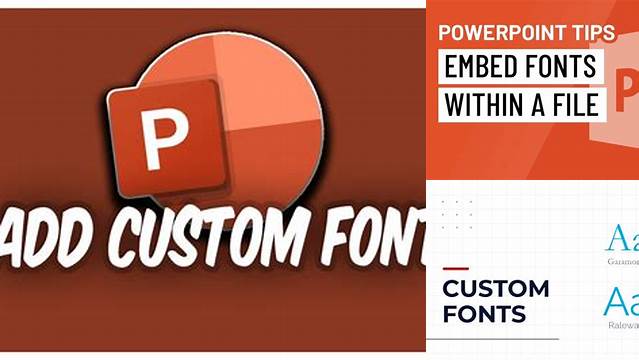
Custom Fonts: Elevate Your PowerPoint Presentations
Hey guys! Ever felt like your PowerPoint presentations are missing that certain je ne sais quoi? Like they're just blending in with the sea of Arial and Times New Roman? Well, you're not alone! One of the easiest ways to inject some serious personality and brand identity into your slides is by using custom fonts. But how do you even do that? Don't worry, we've got you covered. This comprehensive guide will walk you through everything you need to know about using custom fonts in PowerPoint, from finding the perfect font to embedding it correctly so your presentation looks amazing no matter where it's opened.
Why should you even bother with custom fonts, you ask? Think about it: fonts are a crucial part of your visual branding. They communicate tone, style, and even the overall message of your presentation. A playful script font might be perfect for a presentation to kids, but it would look totally out of place in a formal business meeting. Using a custom font that aligns with your brand or the theme of your presentation can instantly elevate your slides from bland to bam! It helps you create a consistent brand identity, making your presentations instantly recognizable. Plus, it's a fantastic way to stand out from the crowd and show that you've put thought and effort into your design. Imagine giving a presentation with a unique, stylish font that no one else is using – instant impact!
Finding the perfect custom font is like finding the perfect pair of shoes – it takes a little searching, but when you find it, you know. There are tons of resources online where you can download free and paid fonts. Websites like Google Fonts, DaFont, and Font Squirrel are treasure troves of typography just waiting to be discovered. When you're browsing, consider the overall style you're going for. Are you looking for something elegant and professional? Bold and modern? Whimsical and fun? Think about your audience and the message you want to convey. A good rule of thumb is to choose fonts that are both visually appealing and easy to read. Avoid overly decorative or complex fonts that can strain the eyes, especially in large blocks of text. Readability is key, especially when presenting to a large audience or projecting your slides onto a screen. You want your message to be clear and impactful, not lost in a sea of confusing characters. So, take your time, explore different options, and don't be afraid to experiment until you find the font that perfectly captures the essence of your presentation.
Embedding Custom Fonts in PowerPoint
Okay, so you've found the perfect font, installed it, and your presentation looks amazing on your computer. But what happens when you share it with someone else, or present it on a different machine? This is where embedding fonts comes in. If you don't embed your fonts, the other person's computer might not have the font installed, and PowerPoint will substitute it with a default font – and trust us, it's usually not pretty. Your carefully chosen typography will be gone, replaced by something generic and potentially completely wrong for your design. Embedding fonts ensures that your presentation looks exactly the way you intended, no matter where it's opened.
Fortunately, PowerPoint makes embedding fonts relatively easy. To embed fonts in PowerPoint, go to File > Options > Save. At the bottom of the "Save" options, you'll see a checkbox labeled "Embed fonts in the file." Check this box, and you'll have two options: "Embed only the characters used in the presentation" and "Embed all characters." The first option will create a smaller file size, as it only embeds the characters that are actually used in your presentation. This is usually the best option if you're concerned about file size and you're not planning on editing the presentation on another computer. However, if you think you might need to make changes to the text later, or if you're using special characters or symbols, it's safer to choose "Embed all characters." This will ensure that all the characters in the font are included in the file, so your presentation will look consistent even if you need to add or change text.
It's important to note that not all fonts can be embedded. Some font licenses restrict embedding, so you might not be able to embed certain fonts even if you want to. If a font cannot be embedded, PowerPoint will typically display a warning message. In this case, you'll need to choose a different font or obtain a license that allows embedding. Another thing to consider is file size. Embedding fonts, especially "Embed all characters," can significantly increase the size of your PowerPoint file. This can be a concern if you're sharing your presentation via email or uploading it to a website. If file size is an issue, try using "Embed only the characters used in the presentation" or consider using a font that has a smaller file size. You can also compress your images to reduce the overall file size. Embedding fonts is a crucial step in ensuring that your presentation looks its best, but it's also essential to be mindful of the potential downsides and choose the option that works best for your needs.
Best Practices for Using Custom Fonts in PowerPoint
Alright, we've covered the basics of finding, installing, and embedding custom fonts. Now, let's talk about some best practices to make sure you're using them effectively. Just because you can use a custom font doesn't mean you should use every custom font you can find! The key is to use fonts strategically and thoughtfully to enhance your presentation, not distract from it.
One of the most important things to keep in mind is readability. A beautiful font is useless if your audience can't read it. Choose fonts that are clear, legible, and easy on the eyes, especially for body text. Avoid overly decorative or script fonts for large blocks of text, as they can be difficult to read and can strain the eyes. Save those fonts for headings or titles where you want to make a statement. Also, consider the size of your font. Make sure it's large enough to be easily read from the back of the room, especially if you're presenting in a large venue. A good rule of thumb is to use a minimum font size of 24 points for body text and larger sizes for headings.
Another crucial aspect is consistency. Stick to a limited number of fonts – two or three at most – throughout your presentation. Using too many different fonts can make your slides look cluttered and unprofessional. Choose a font for your headings, a font for your body text, and maybe a third font for accents or highlights. Use these fonts consistently throughout your presentation to create a cohesive and polished look. Consistency extends beyond just the fonts themselves; it also applies to font sizes, colors, and styles. Use the same font sizes for headings and subheadings, and use the same colors and styles for emphasis. This will help create a visually appealing and easy-to-follow presentation.
Finally, don't forget about brand identity. If you're creating a presentation for your business or organization, use fonts that align with your brand guidelines. This will help reinforce your brand identity and create a consistent message across all your materials. If you don't have specific brand fonts, choose fonts that reflect the personality and values of your brand. A professional services firm might use classic and elegant fonts, while a creative agency might use more modern and edgy fonts. Using custom fonts effectively is all about balance. Choose fonts that are visually appealing, easy to read, and consistent with your brand. By following these best practices, you can create presentations that look professional, engaging, and memorable.
Even with the best planning, sometimes things can go wrong. Let's tackle some common issues you might encounter when using custom fonts in PowerPoint and how to fix them. One of the most frustrating problems is when your fonts don't display correctly on another computer, even after you've embedded them. This can be due to a variety of factors, but one common cause is font licensing restrictions. As we mentioned earlier, some fonts cannot be embedded, and PowerPoint will substitute them with a default font if it can't embed them. If you're experiencing this issue, check the font license to make sure embedding is allowed. If it's not, you'll need to choose a different font or obtain a license that permits embedding.
Another potential issue is font corruption. Sometimes, font files can become corrupted, which can cause them to display incorrectly or not at all. If you suspect a font file is corrupted, try downloading it again from the original source. You can also try running a font validation tool, which can identify and repair font issues. Both Windows and macOS have built-in font validation tools, or you can use a third-party tool.
Sometimes, the issue isn't with the font itself, but with PowerPoint's font cache. PowerPoint caches fonts to improve performance, but sometimes this cache can become corrupted or outdated, causing font display problems. To clear PowerPoint's font cache, you'll need to close PowerPoint, navigate to the folder where the cache is stored (the location varies depending on your operating system and PowerPoint version), and delete the cache files. A quick Google search for "clear PowerPoint font cache" will provide specific instructions for your setup.
If you're still having trouble, try converting your presentation to a PDF. When you save a PowerPoint presentation as a PDF, the fonts are typically embedded automatically, which can often resolve font display issues. However, keep in mind that converting to PDF will make your presentation non-editable, so this is usually a last resort. Finally, if all else fails, contacting font support or the font foundry's support team might be necessary. They may be able to provide specific guidance or troubleshooting steps for their fonts. Dealing with font issues can be frustrating, but by systematically troubleshooting the problem and trying different solutions, you can usually find a way to get your fonts displaying correctly.
So there you have it, folks! Everything you need to know about using custom fonts in PowerPoint to create presentations that truly shine. From finding the perfect typeface to embedding it for consistent display, you're now equipped to take your presentations to the next level. Remember, fonts are a powerful tool for communication, so choose them wisely and use them effectively. They can help you convey your message with clarity, style, and impact. By incorporating custom fonts into your presentations, you can elevate your brand, engage your audience, and leave a lasting impression. So go forth, experiment with typography, and unleash your creative potential! Happy presenting!